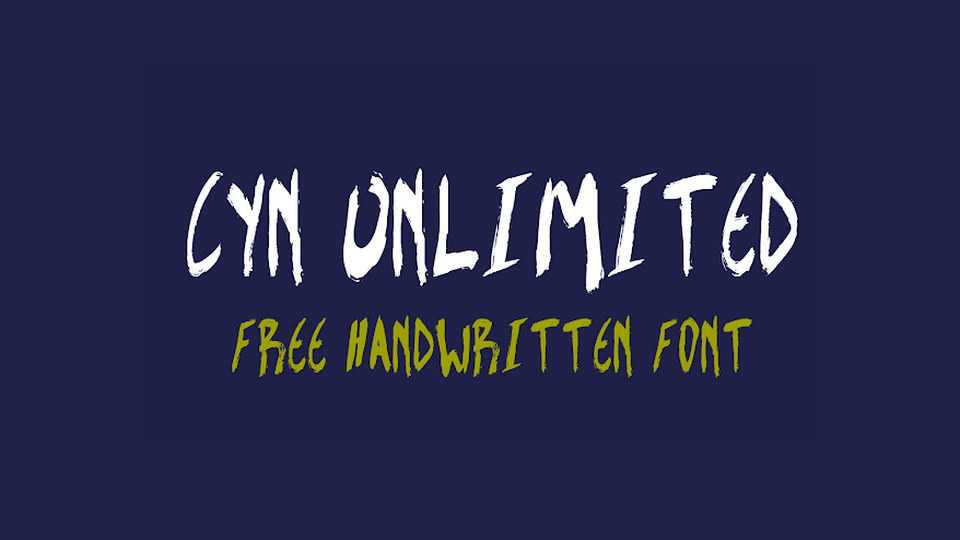
Download CYN Unlimited font, a raw, bold hand painted brush typeface. With its grungy look, CYN Unlimited font works for posters and album artworks, but also looks great on clothing and prints.
Designer: Petros Vasiadis